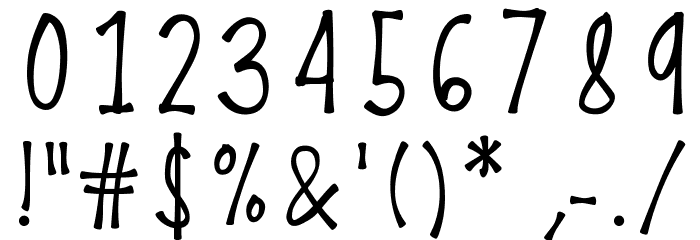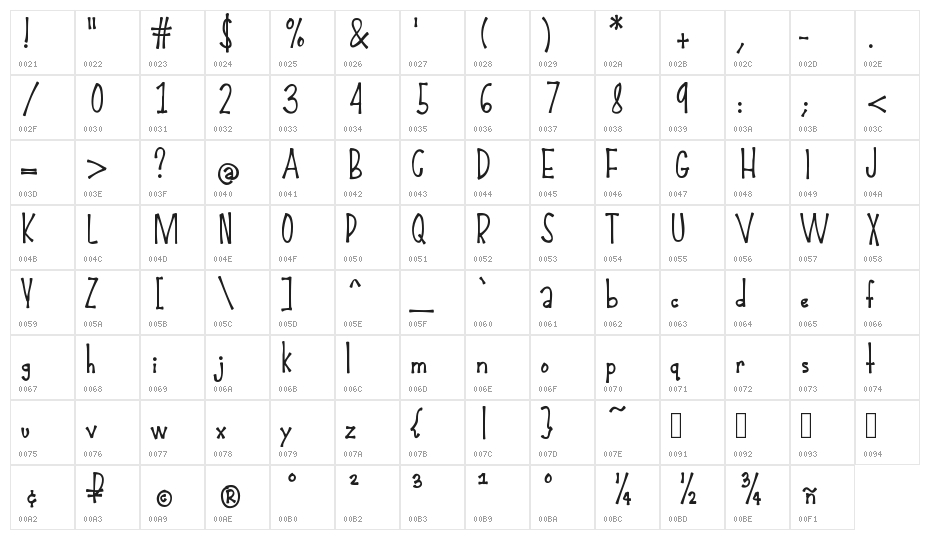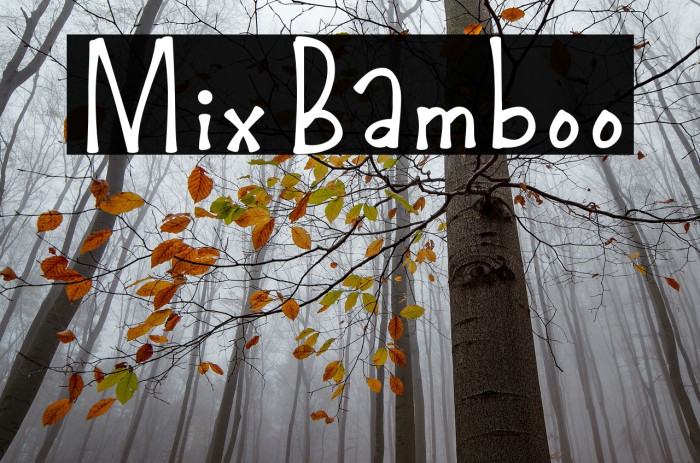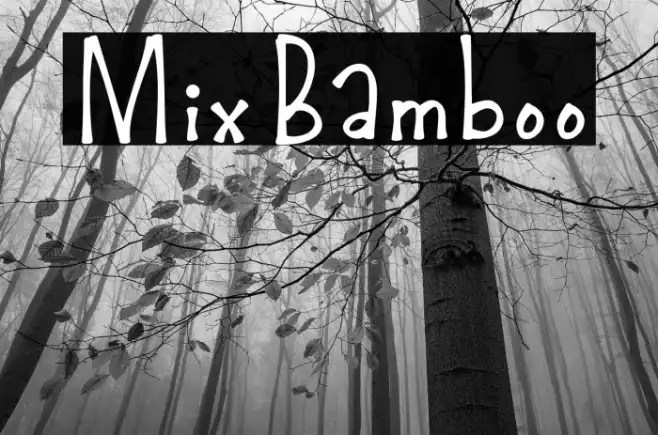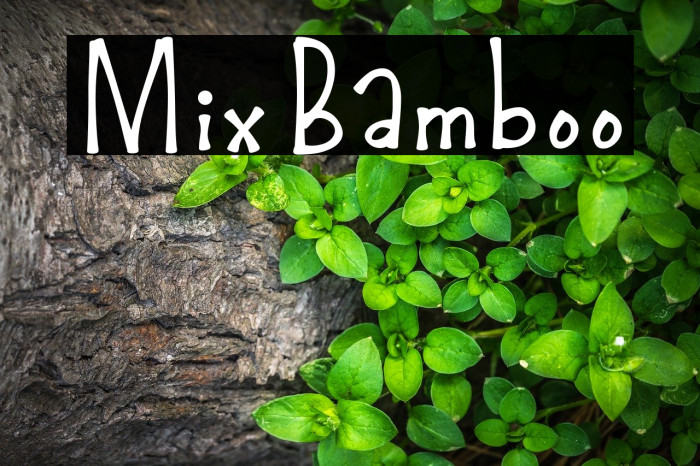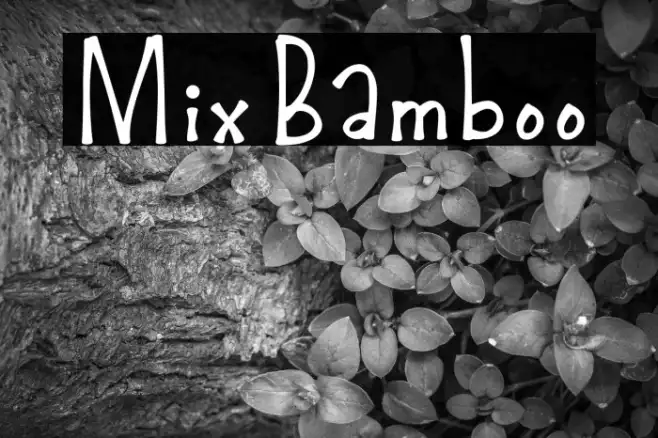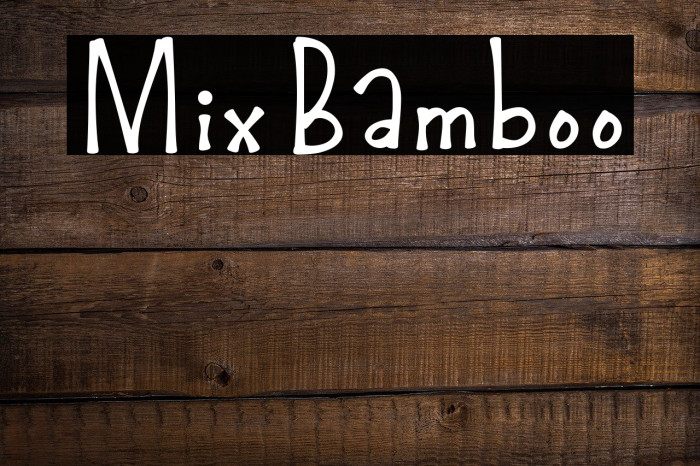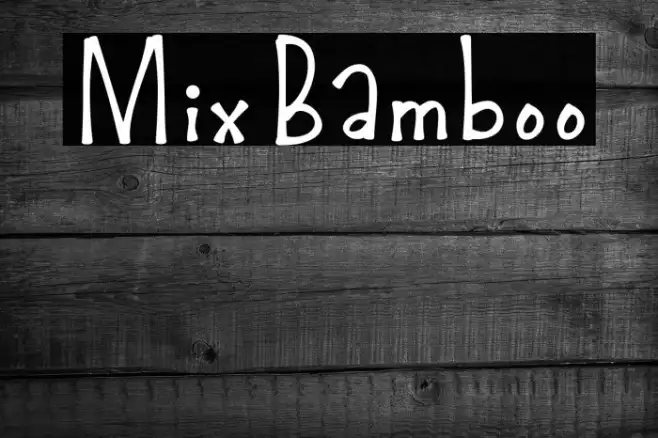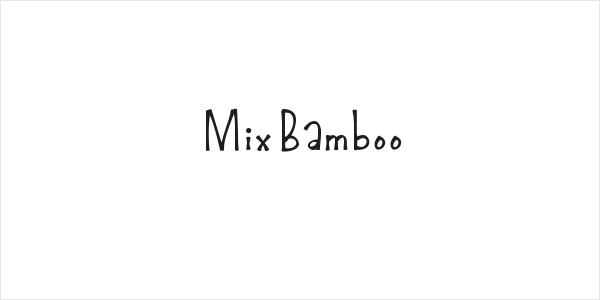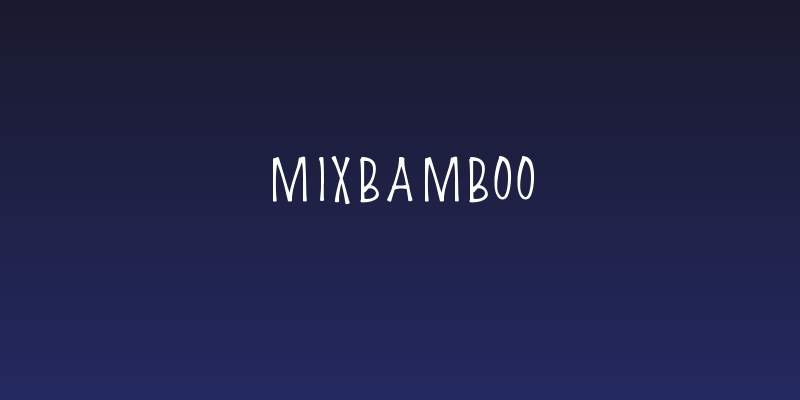
MixBamboo Font
MixBamboo Description
This playful and quirky font features a hand-drawn aesthetic with irregular strokes and a whimsical feel. The uppercase letters are tall and slightly narrow, while the lowercase letters maintain a consistent height with a casual appearance. The numbers are bold and rounded, complementing the overall style. Special characters are creatively designed, adding to the font's charm. The font's unique personality makes it ideal for projects that require a touch of fun and creativity. Its informal style is perfect for children's books, playful branding, and artistic projects.
| Use Case | Headlines, Logos, Artistic projects |
| Proposed Projects | Children's books, playful branding, artistic projects, greeting cards, and casual invitations. |